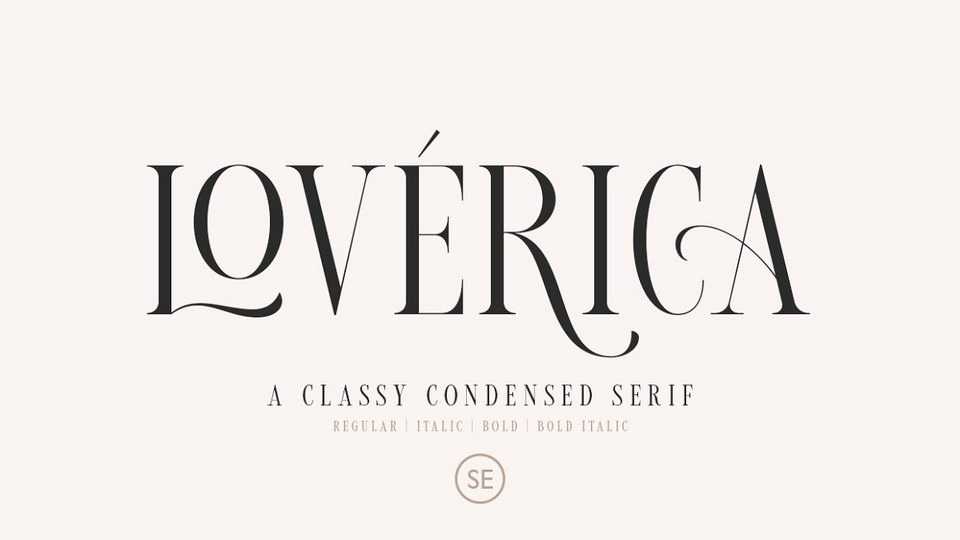
Download Loverica font, a modern serif typeface with an elegant and classy look. Loverica comes with a bunch of alternates up to 7 style for each characters that will make your presentation or logo even more stunning and stand out!